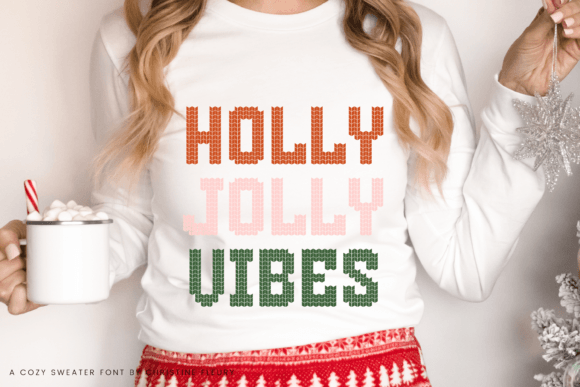
Knitted Sweater Font
Introducing Knitted Sweater – A Cozy Sweater Font. Wrap your words in cozy, knitted stitches, perfect for adding warmth to any design to create a variety of crafts 🌟. Perfect for Sublimation, SVGs, Crafts, logos, Cards, Quotes, Branding, Ornaments, Mugs, prints, and more!